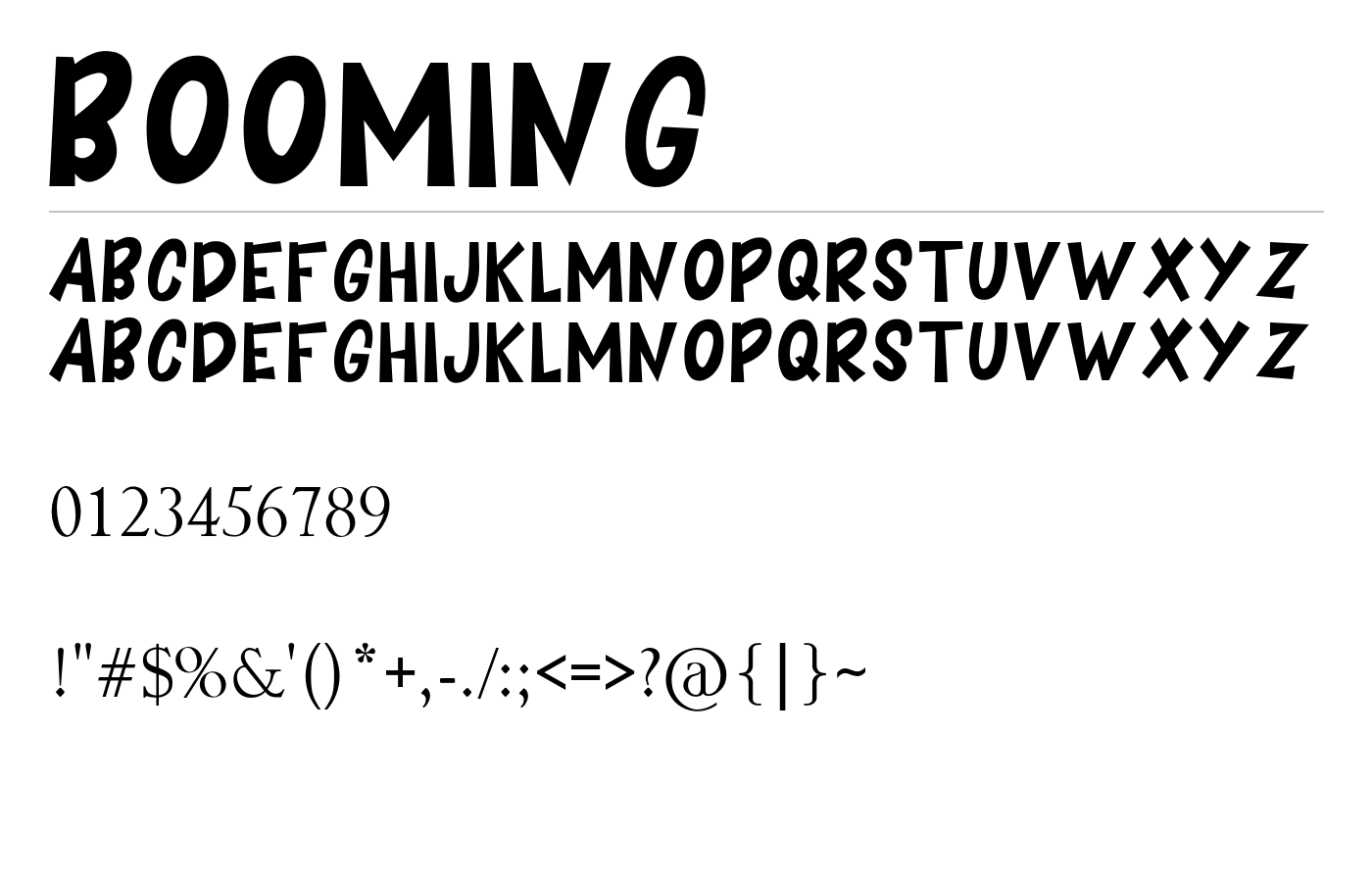
BOOMING is a bold, playful sans serif font with an energetic and slightly irregular character design, giving it a fun, informal vibe. Its tall, narrow letterforms with moderate contrast and hand-drawn feel make it ideal for eye-catching headlines, logos, and creative projects that seek a lively and approachable personality. This font works best in casual, youthful branding and designs where a quirky, dynamic tone is desired.
BOOMING Font
About BOOMING Font
| Font family | BOOMING Font |